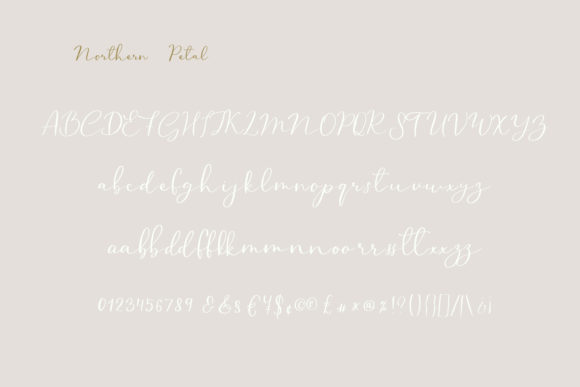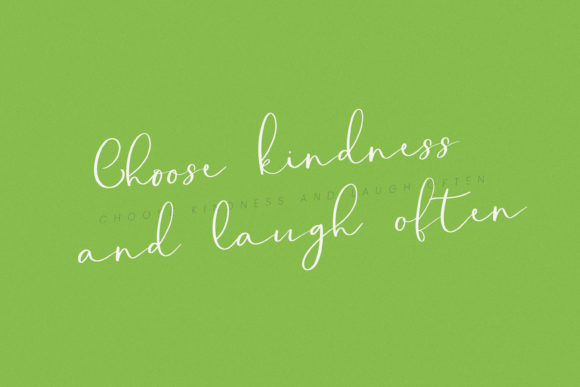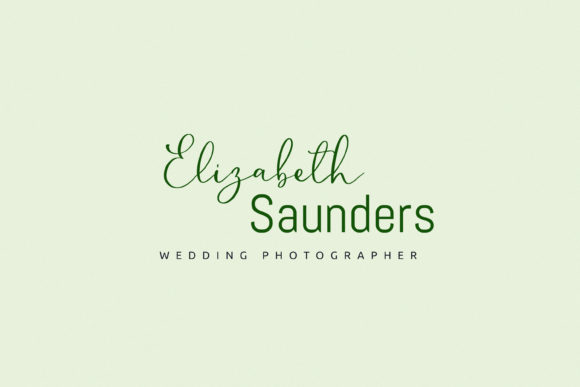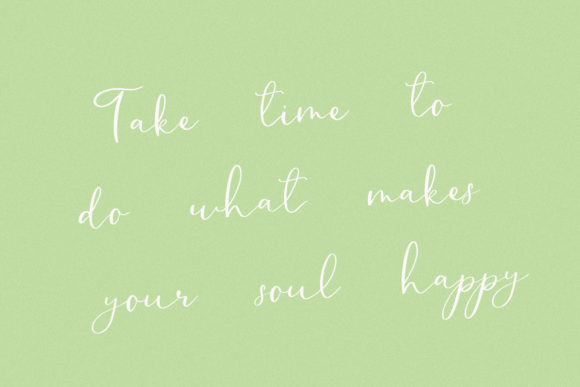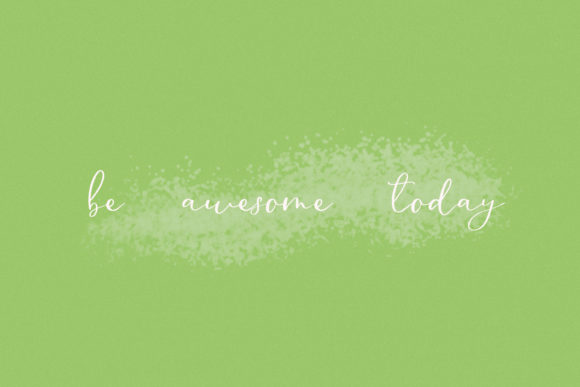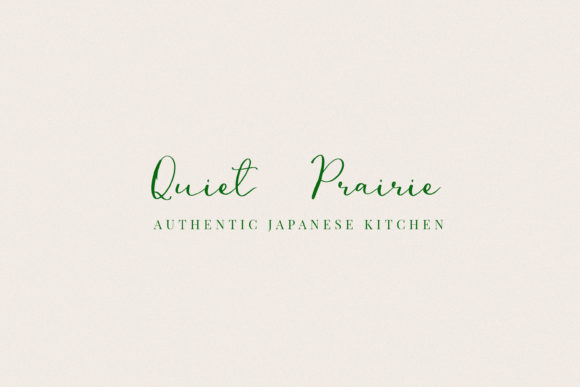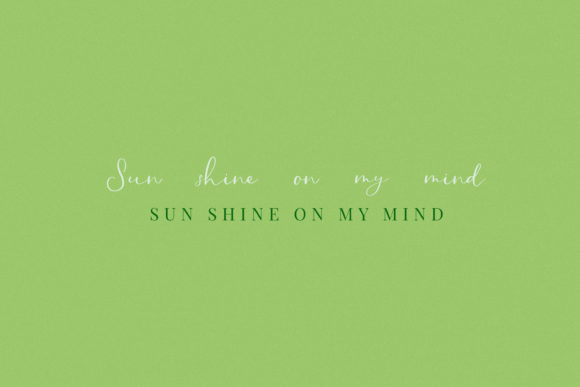
HomeScript FontsNorthern Petal Font Script Fonts Northern Petal Font FacebookXPinterestWhatsApp Northern Petal Font Poster 2 Northern Petal Font Poster 3 Northern Petal Font Poster 4 Northern Petal Font Poster 5 Northern Petal Font Poster 6 Northern Petal Font Poster 7 Northern Petal Font Poster 8 About Northern Petal Font Northern Petal is an organic and natural script that features the bold realism of handwriting. DOWNLOAD NOW People also explored Monteray Font Thicken Font Hello Bestie Font Sunshine Font Happy Cupcake Font Railey Script Font Handmade Font Sweet Rusty Font Digtos Font 367 0 TagsNorthern Petal Font Previous articleAutogenic FontNext articleLittle Queen Font LEAVE A REPLY Cancel reply Comment: Please enter your comment! Name:* Please enter your name here Email:* You have entered an incorrect email address! Please enter your email address here Website: Save my name, email, and website in this browser for the next time I comment. Personal Use Free Ginóra Personal Use Free Read more about this font Samureix Personal Use Free Read more about this font Sarwendah Personal Use Free Read more about this font Glosery Personal Use Free Read more about this font BLOG Free vs Paid Fonts: Why Investing in Premium Fonts Is Worth It Free vs Paid Fonts: Why Premium Fonts Are Worth It in 2025 The debate of free vs paid fonts continues in the design world. While... Free Fonts Risk: Why Free Fonts Can Be Dangerous for Designers Elegant Wedding Invitation Fonts – Handwritten & Script Fonts Fonts That Capture the Spirit of New York City